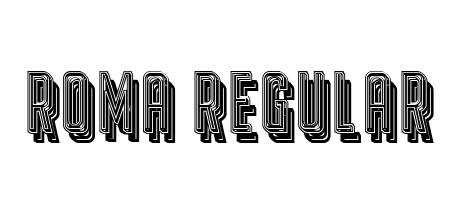
Roma
Roma Regular: A bold, imposing font with a subtly embossed, almost metallic look. Each letter is thick, strong, and possesses a slightly 3D effect, giving it a sense of weight and depth. The serifs are minimal, contributing to its modern yet classic feel. It's a font that commands attention.